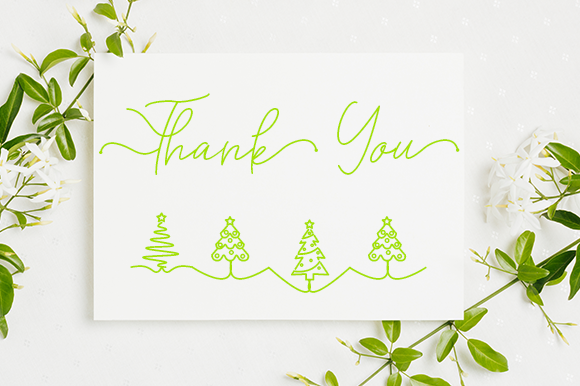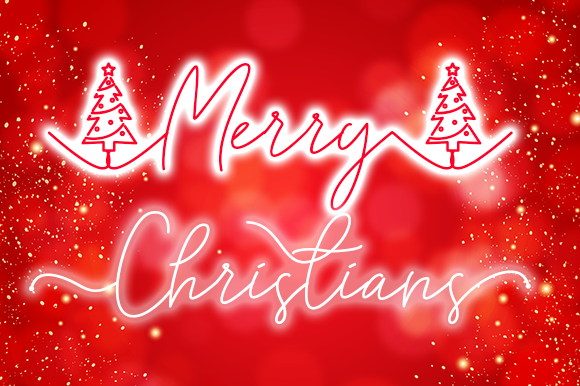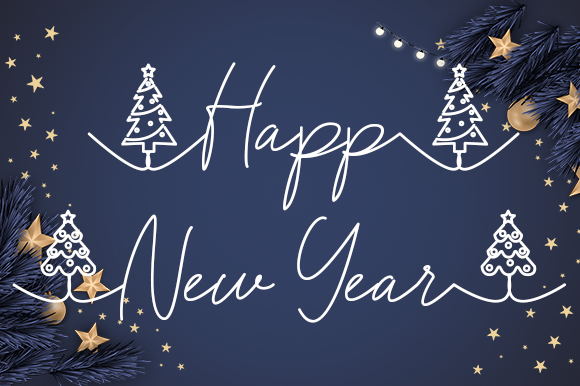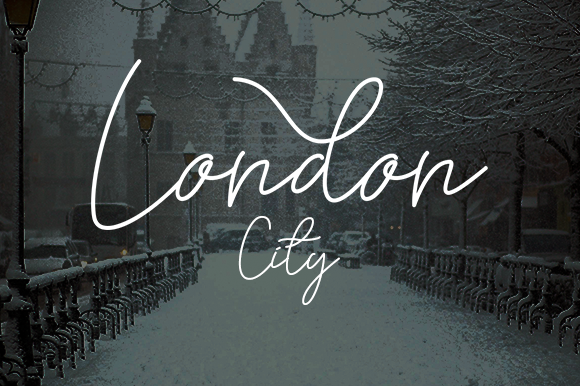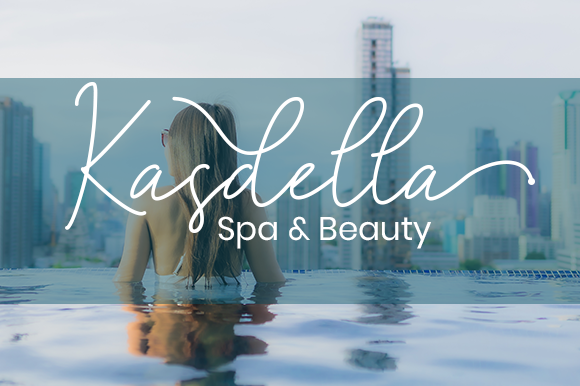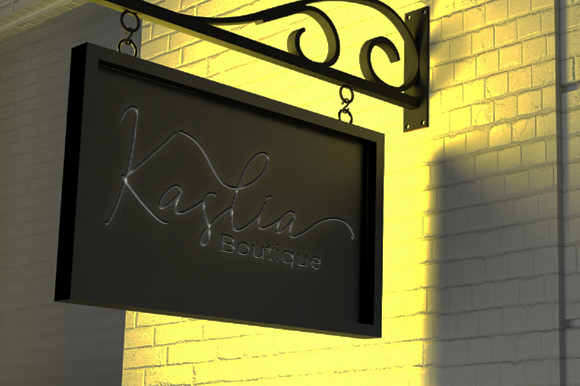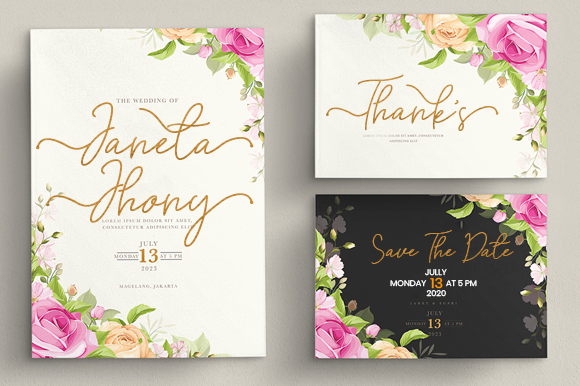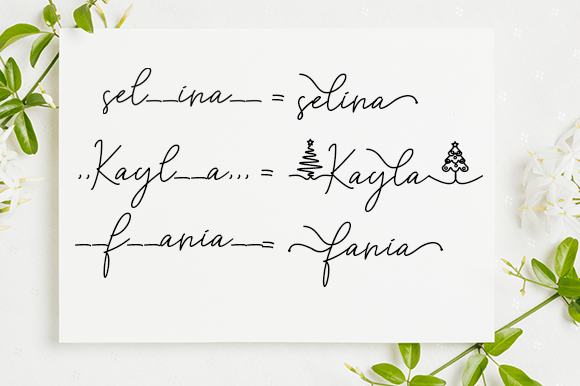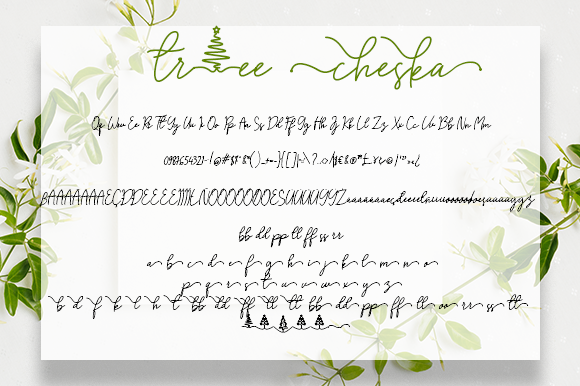
Tree Cheska Font
About Tree Cheska Font
Tree Cheska is a captivating and refined handwritten font that exudes style and sophistication. With its clean, thin lines and smooth curves, this font adds a touch of elegance to any design project. Whether you’re creating branding materials, invitations, quotes, or other creative works, Tree Cheska is sure to make a lasting impression.
The font’s clean and sleek aesthetic is one of its standout features. The thin and well-defined letterforms create a modern and contemporary look that is both visually pleasing and easy to read. The smooth curves and balanced spacing give Tree Cheska a harmonious and refined vibe, making it perfect for designs that require a touch of sophistication.
Tree Cheska’s versatility is another key aspect of its appeal. It can be used in a wide range of design applications, from logos and branding to social media graphics and print materials. Its clean and legible style allows it to adapt to various design themes and aesthetics, making it a versatile choice for different projects.
One of the notable features of Tree Cheska is its extensive set of beautiful glyphs and swashes. With its PUA encoding, accessing these decorative elements is effortless, allowing you to add flourishes and embellishments to your designs with ease. These additional glyphs and swashes provide creative flexibility and allow you to customize your designs, making them truly unique and eye-catching.
Tree Cheska’s elegance and delicacy make it an excellent choice for designs that require a refined and stylish touch. Its clean and smooth letterforms lend a sense of sophistication and professionalism to your projects. Whether you’re designing for weddings, fashion, beauty, or any other creative field, Tree Cheska can elevate your work and leave a lasting impression on your audience.
Incorporating Tree Cheska into your projects will elevate them to new levels of style and refinement. Its clean, thin, and smooth aesthetic, coupled with its vast selection of glyphs and swashes, offers endless possibilities for creative expression. Whether you’re a professional designer or a passionate enthusiast, Tree Cheska will undoubtedly add a touch of elegance and sophistication to your designs, leaving a lasting impression on your audience.